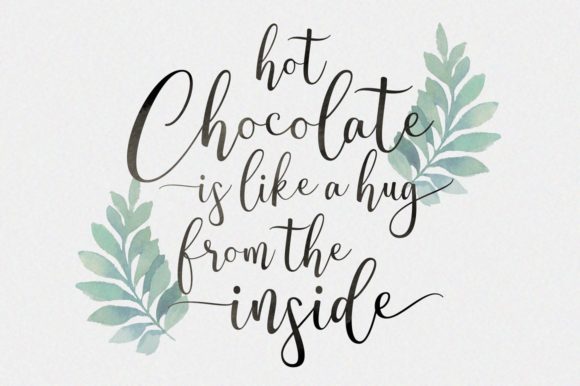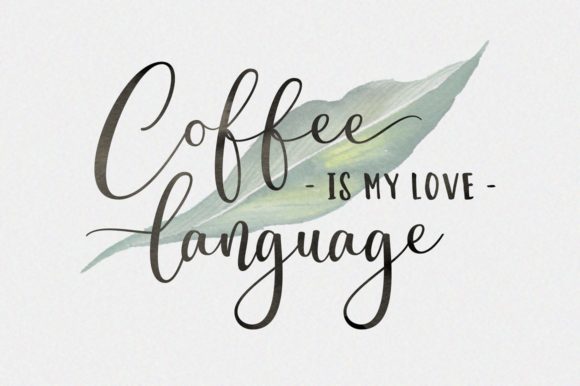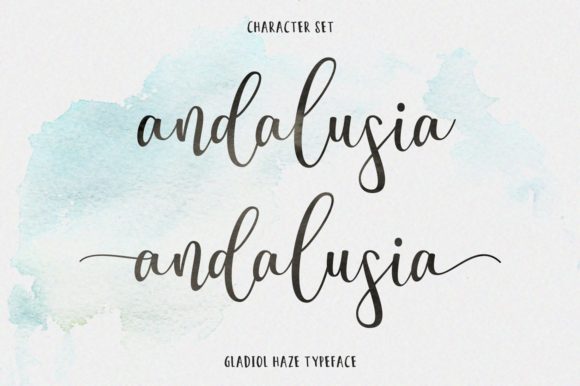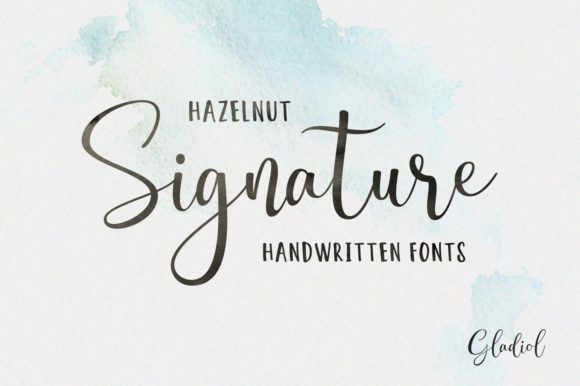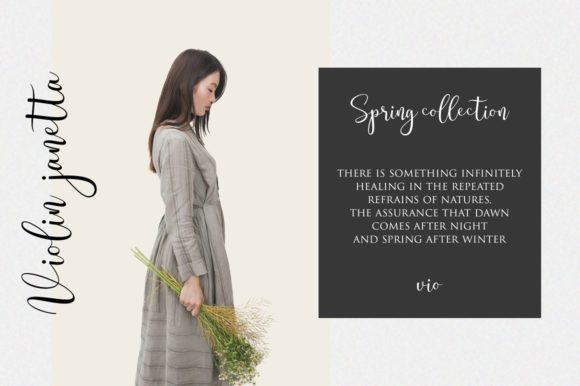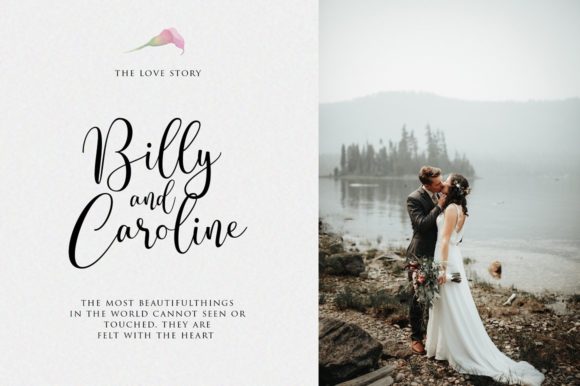
Gladiol Font
About Gladiol Font
Gladiol is a simple and flowing handwritten font. It has beautiful and well balanced characters and as a result, it matches a wide pool of designs. Add it to your most creative ideas and notice how it makes them come alive!